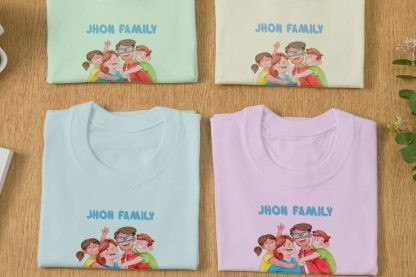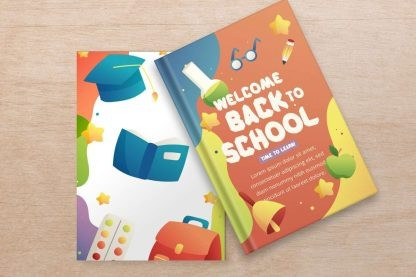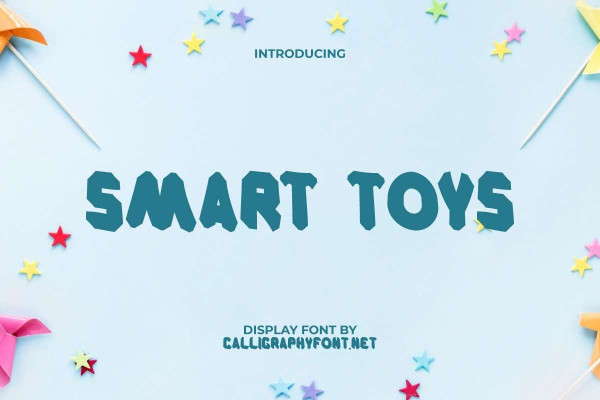
Smart Toys Font
Smart Toys Font is an adorable playful display font with an attractive appearance, created by CalligraphyFonts. This is a bold block typeface that brings fun and focused attention that would be perfect for any creative project, such as billboard, brand logo, brochure, header, invitation, label, packaging design, poster, quotes, screen print, stationery, sticker, and much more.
Smart Toys Font takes inspiration from the title of a children’s book combined with an old school style. It’s been refined for form and readability so it’ll be great for any industry, including: accessories, advertisement, author, baby gear, children’s events or parties, clothing brand, education, handicraft, interior design, kindergarten, library, photography, printing, publishing, restaurant, toyshop, etc.